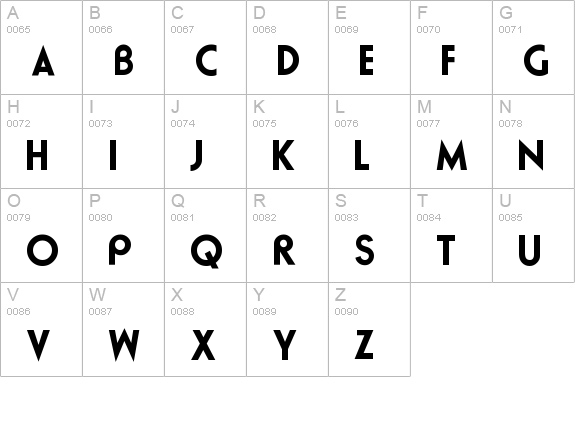
Ronda Bold is a strong, high-contrast variant in the Ronda typeface family \xE2\x80\x94 well suited to headlines, attention-grabbing titles, and strong calls-to-action.
Ronda Bold is a striking and versatile typeface that exudes strength and elegance. With its bold weight and clean lines, this font is perfect for making a bold statement in your designs. Whether you're creating eye-catching headlines or attention-grabbing posters, Ronda Bold is sure to command attention. The best part? Ronda Bold is available for free download at FontsMarket.com. This means you can easily access this stunning font and use it in your projects without any cost. Don't miss out on the opportunity to enhance your designs with the timeless appeal of Ronda Bold. Download it today and take your creations to the next level.